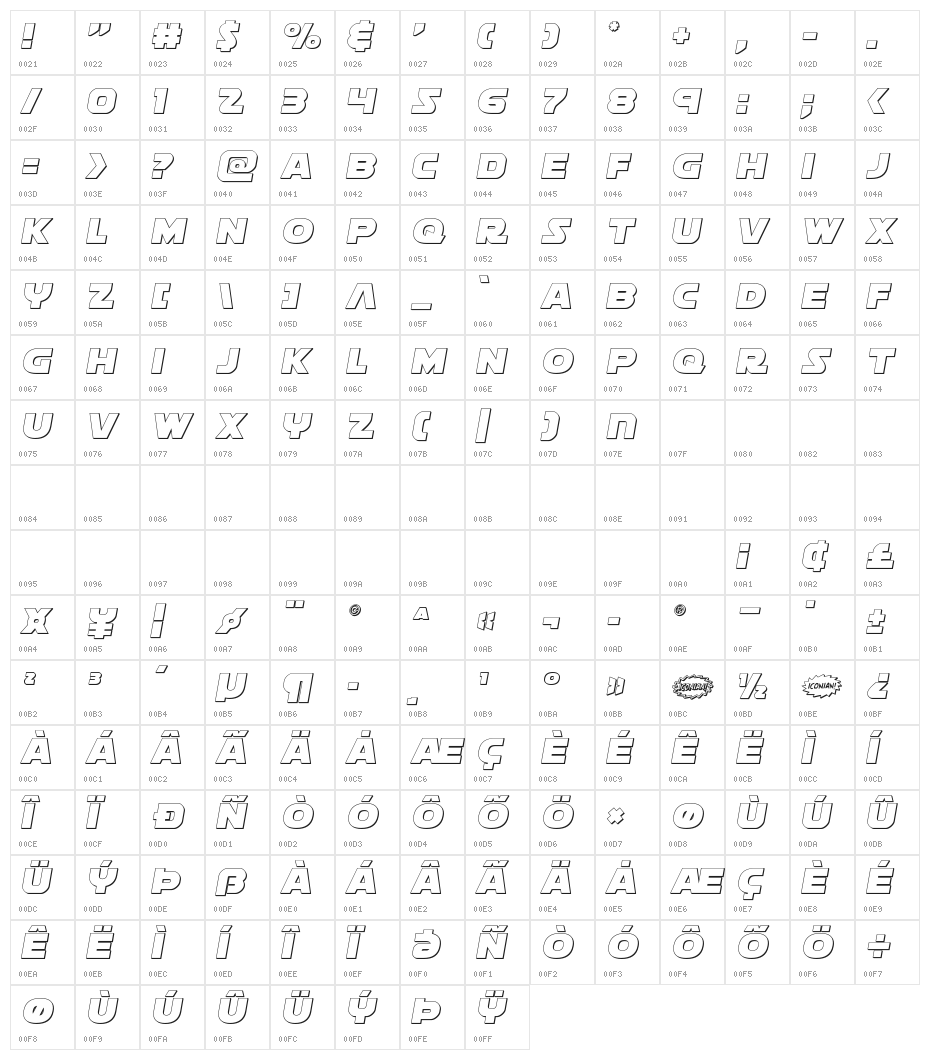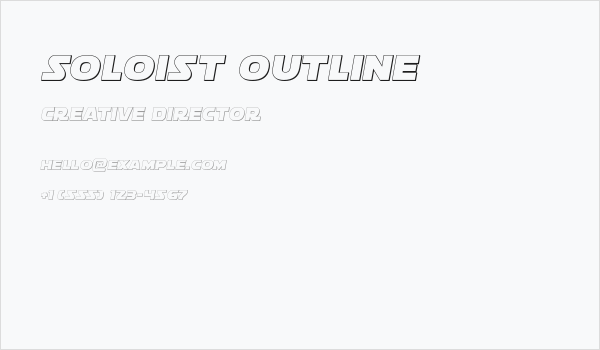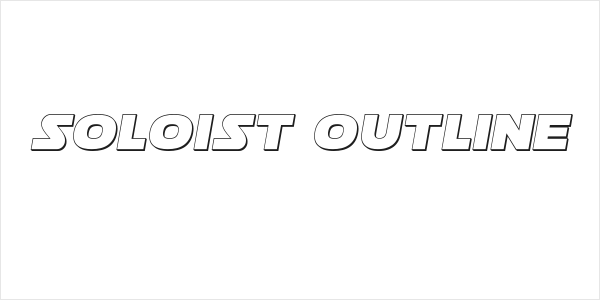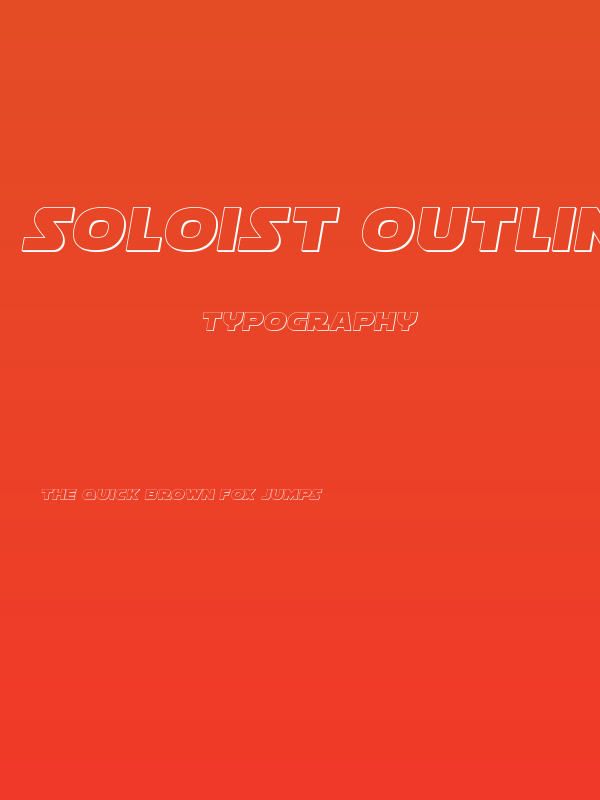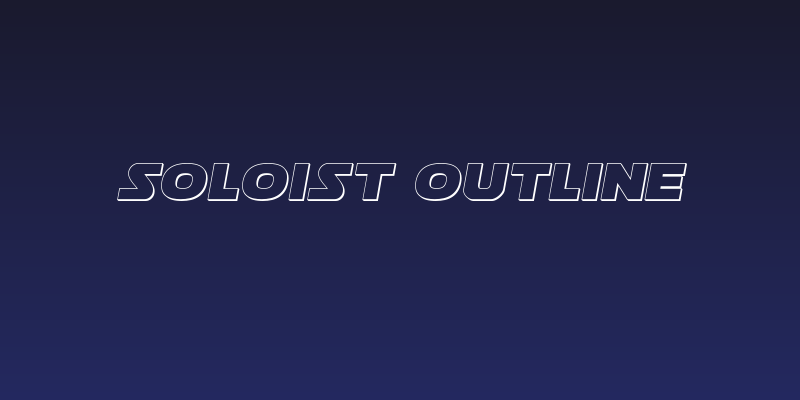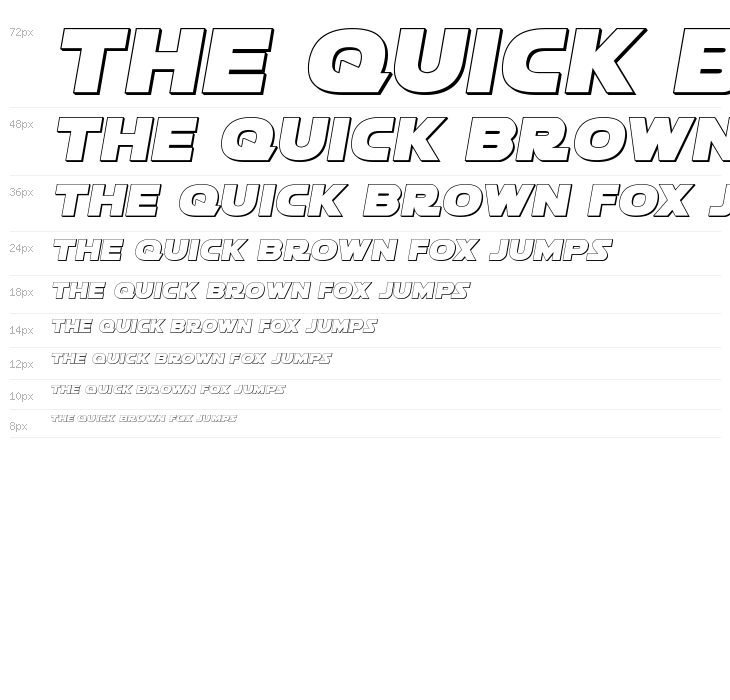
Soloist Outline Font
Soloist Outline Description
This font features a bold, outlined style with a modern and futuristic aesthetic. The characters are uppercase and have a distinct geometric structure, giving them a strong and impactful presence. The outline design adds a unique dimension, making the letters appear as if they are carved out or hollow. This style is particularly eye-catching and can be used to create a striking visual impact. The font maintains consistent proportions across all characters, ensuring a uniform appearance. The spacing between characters is normal, allowing for clear readability while maintaining the boldness of the design. The numbers and special characters follow the same outlined style, ensuring cohesion throughout the font set.